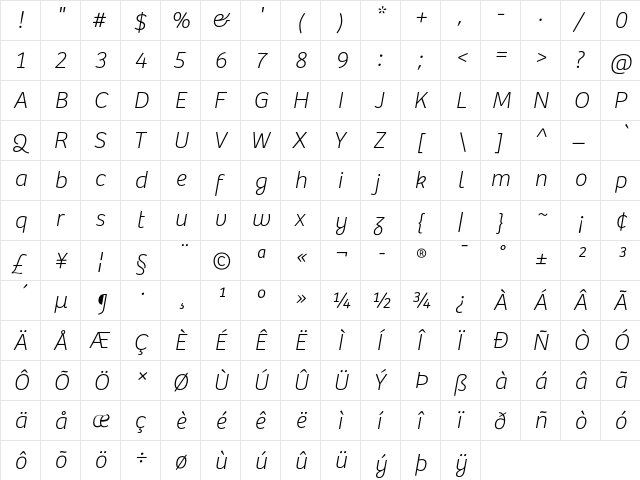
Bree Thin Oblique
| Foundry | TypeTogether |
| Designer | Veronika Burian, JosΠScaglione |
Design Context for Bree Typeface
Bree is a composed and adaptable typeface that performs quietly and consistently across a wide range of design contexts. Its italic angle brings a sense of urgency and motion to the letterforms. The delicate stroke weight brings airiness and refinement to layouts.
Pro Tip: Try Bree for annotation and caption copy alongside an upright companion — the contrast in angle creates a dynamic but ordered typographic system.